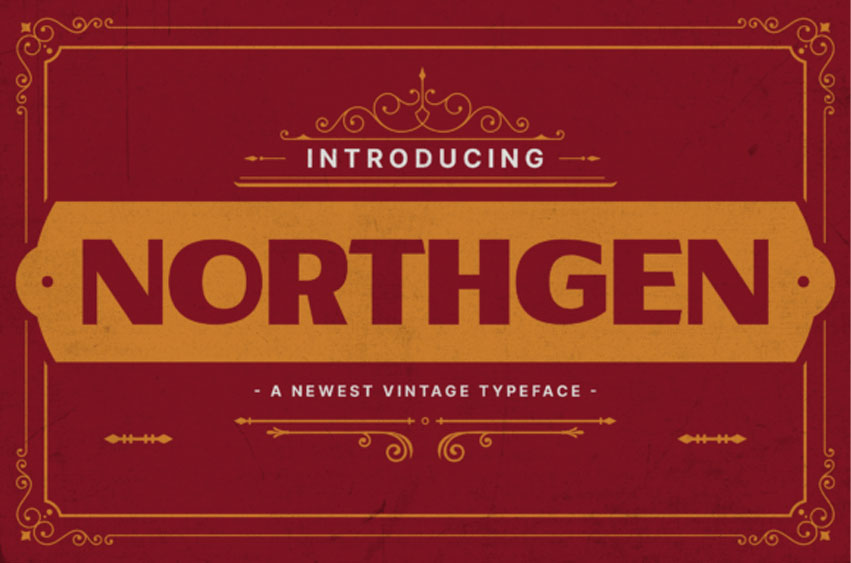
Northgen Font is a captivating vintage typeface that evokes a sense of timeless elegance and classic charm. With its intricate details and carefully crafted design, Northgen is perfect for projects that require a touch of nostalgia and sophistication.
Ideal for logos, packaging, invitations, and editorial layouts, this typeface brings a historical yet refined look to any creation. Its versatile style seamlessly blends with both modern and traditional aesthetics, making Northgen a go-to choice for adding a vintage flair to your work.